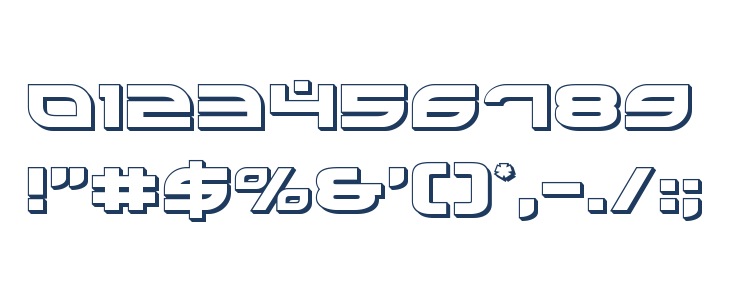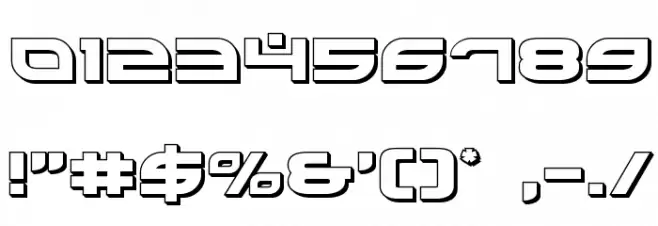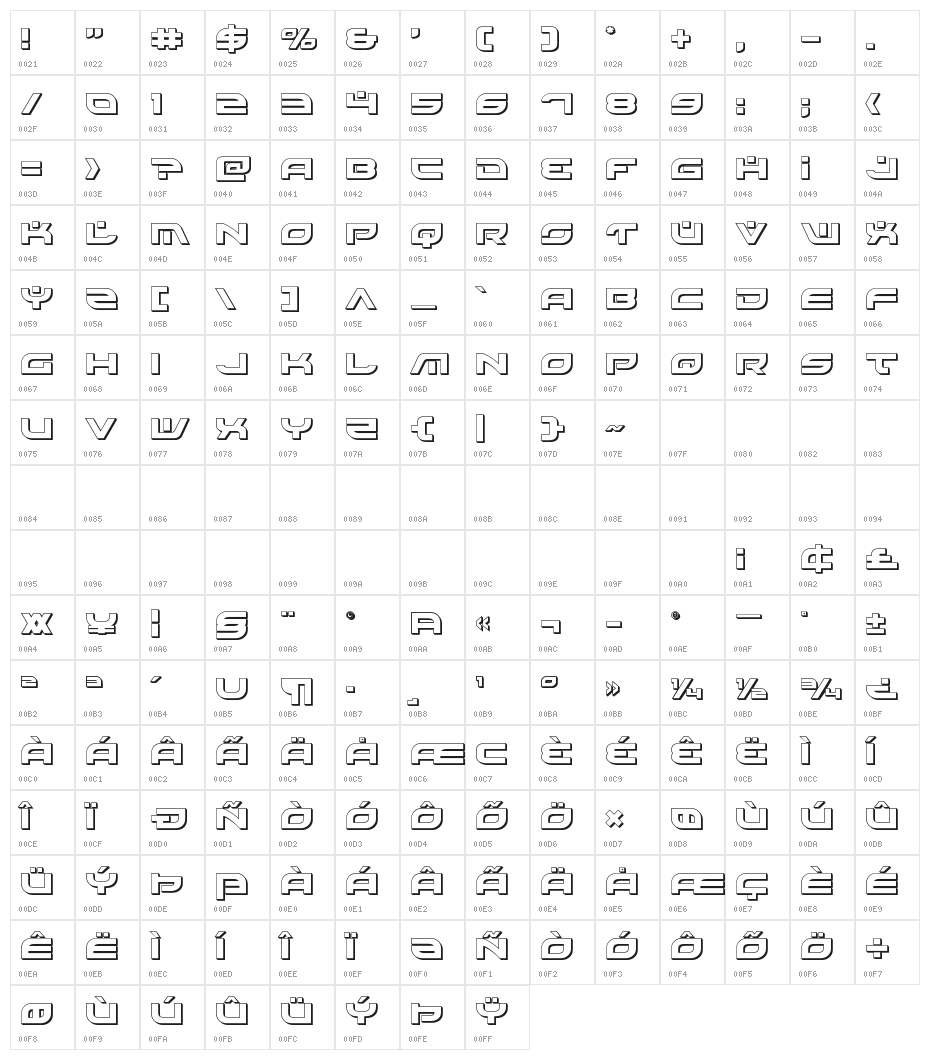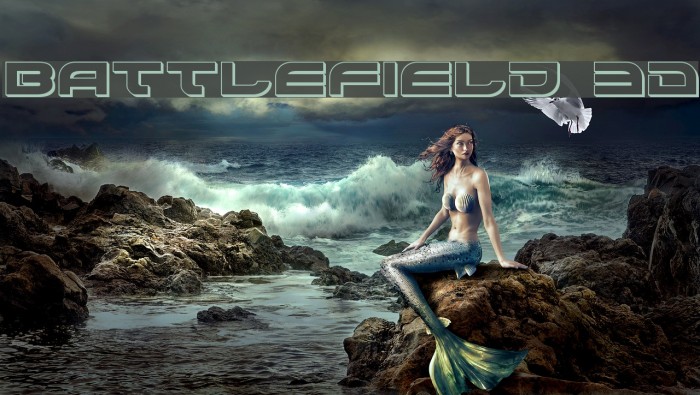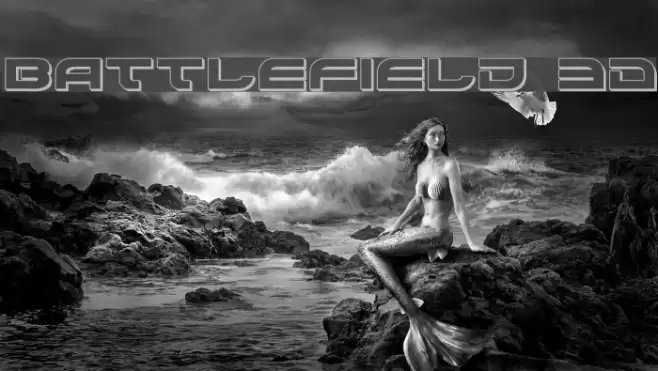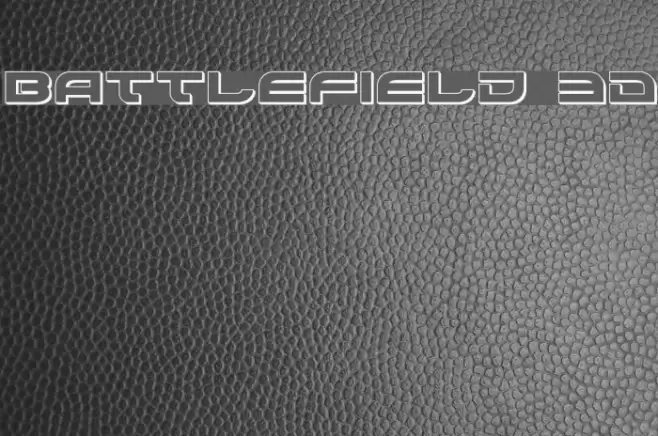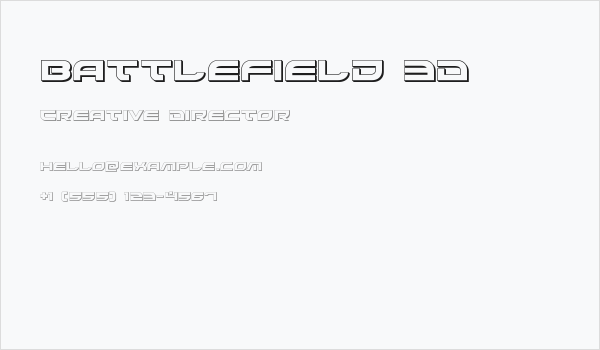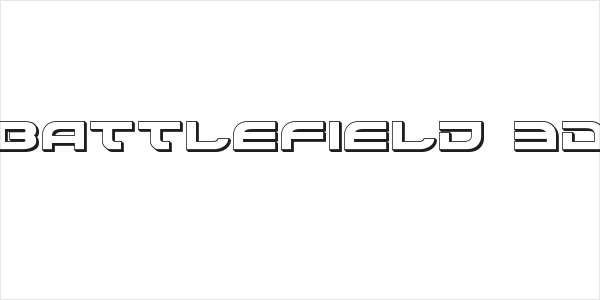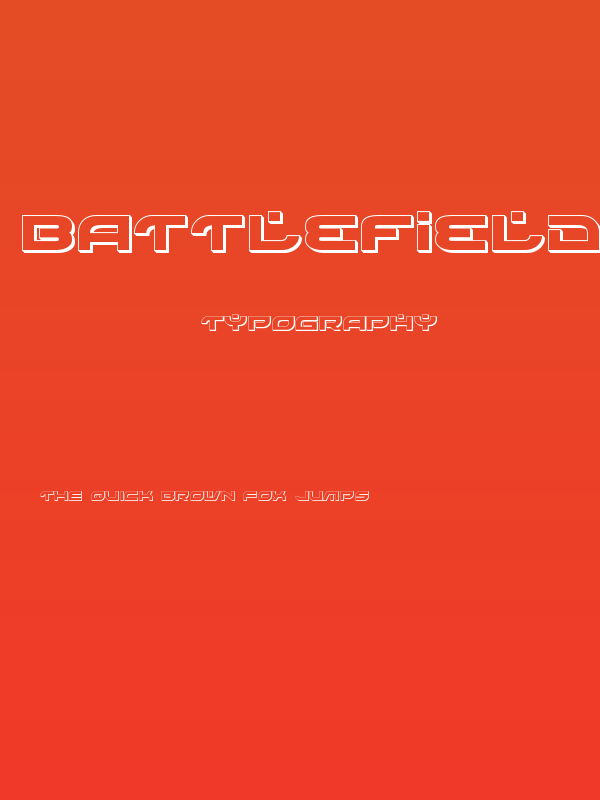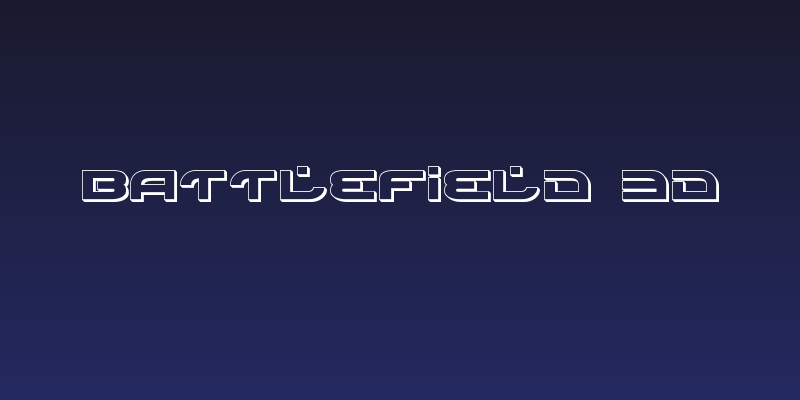
Battlefield 3D Font
Battlefield 3D Description
This font features a bold, futuristic design with a three-dimensional effect that gives it a unique and striking appearance. The characters are outlined, creating a hollow look that enhances its modern aesthetic. The uppercase and lowercase letters share a consistent style, with angular and geometric shapes that suggest a sense of movement and dynamism. The numbers and special characters are designed to match the overall theme, maintaining the same bold and outlined structure. This font is ideal for projects that require a strong visual impact and a contemporary feel.
| Proposed Projects | Ideal for video game titles, tech branding, sci-fi posters, and modern digital interfaces. |